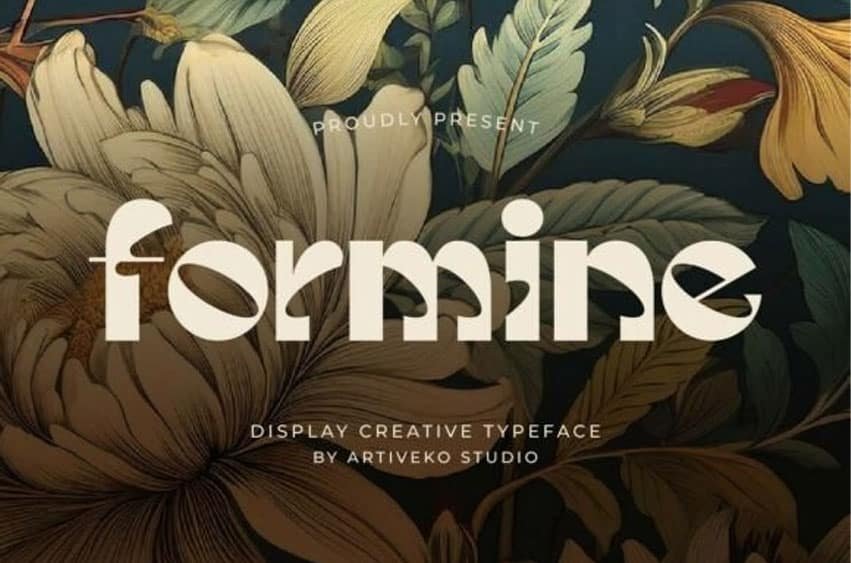
Formine Font works beautifully for retro logos, apparel graphics, restaurant identities, packaging, posters, album artwork, badges, labels, merchandise, and editorial headlines. It is especially suited to projects that need a handcrafted, nostalgic atmosphere without feeling outdated.
From a heritage-inspired clothing label to a vintage coffee package or a bold event poster, Formine gives typography a distinctive personality that immediately transports the viewer to another era.